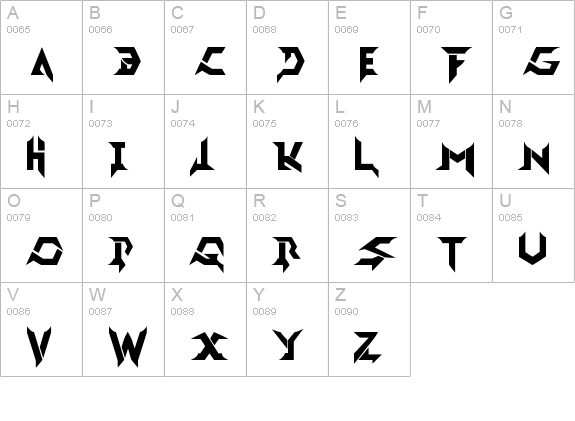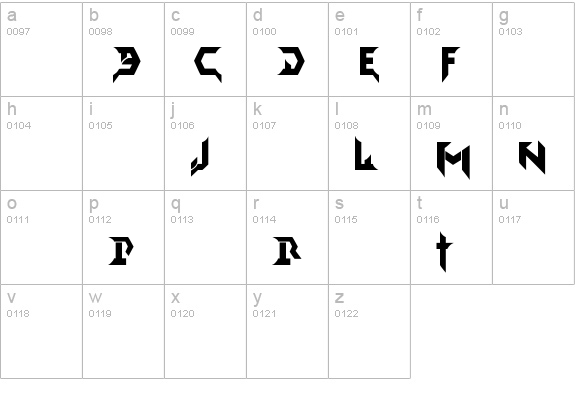
Introducing the captivating Death Devil font, a bold and mesmerizing typeface that will leave a lasting impression on any design project. With its edgy and unconventional aesthetic, Death Devil is the perfect choice for those seeking to add a touch of darkness and intrigue to their creations. This font features intricate and intricate details, with sharp, jagged edges that evoke a sense of danger and mystery. Its unique letterforms are imbued with a sense of rebellion, making it ideal for projects that require a rebellious or alternative vibe. But what sets Death Devil apart from the rest is not only its striking design, but also its accessibility. This font is freely available to download at FontsMarket.com, making it a valuable asset for designers, artists, and creatives who are looking to add a touch of the extraordinary to their work without breaking the bank. Whether you're designing a rock band poster, a tattoo design, or a logo for a gothic-inspired brand, Death Devil font will elevate your project to new heights. Its bold and expressive nature will instantly grab attention and leave a lasting impact on your audience. So don't hesitate - unleash your creativity and explore the limitless possibilities that Death Devil font has to offer. Download this captivating font for free at FontsMarket.com and let your imagination run wild. Dare to be different, and let Death Devil be your trusted companion on your design journey.